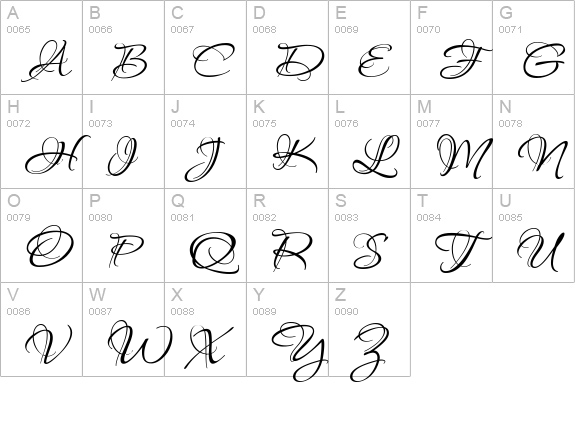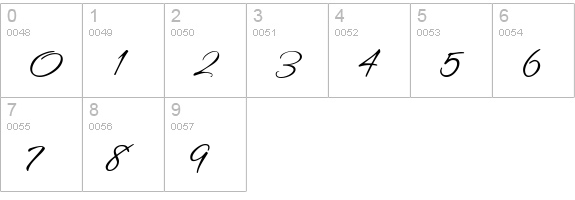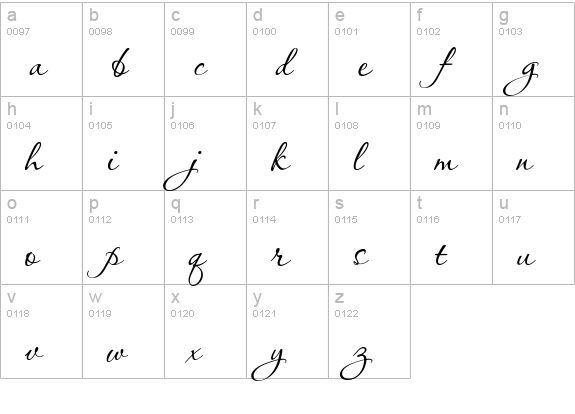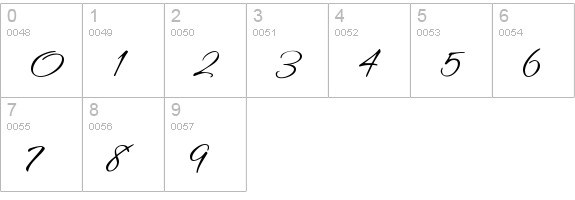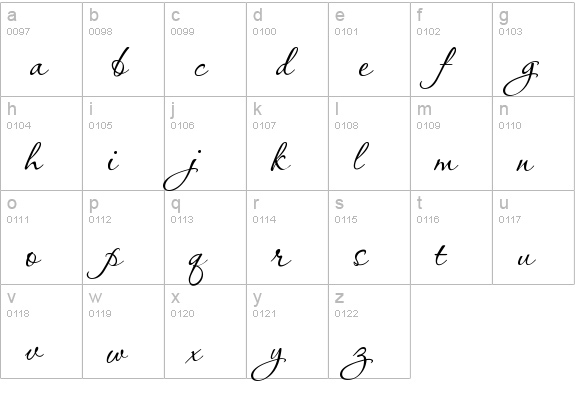
PassionsConflictROB Font Details
Introducing PassionsConflictROB, a captivating and dynamic font that will ignite your creativity and add a touch of rebellious flair to any project. This unique typeface is the perfect embodiment of the clash between passions, blending elegance with a hint of conflict. PassionsConflictROB is a versatile font that will make your designs stand out from the crowd. Whether you're working on a logo, branding materials, or a poster, this font will add an element of intrigue and excitement. Its bold and edgy characters create a sense of energy and movement, capturing the essence of passion and conflict. But that's not all - PassionsConflictROB is also free! Yes, you read that right. This extraordinary font is freely available to download at FontsMarket.com. We believe that creativity should be accessible to all, and that's why we've made this font available for everyone to enjoy. So go ahead, unleash your passions and let the conflict spark. Download PassionsConflictROB today and witness the transformation it brings to your designs. Embrace the freedom of expression and let your creativity soar with this remarkable font.